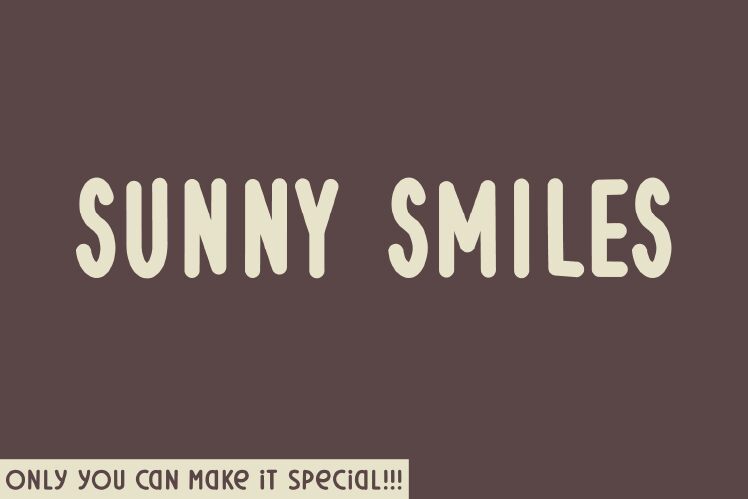
Sunny Smiles font by Hanna Bie Creative Studio brings charm with its handwritten style and condensed form, perfectly capturing the essence of warmth and approachability. This free font is not only visually appealing but also versatile for a wide range of design projects.
Ideal for branding, invitations, or social media, Sunny Smiles injects personality and friendliness into any creative endeavor. Its unique characteristics make it stand out while maintaining readability, offering designers an opportunity to create engaging visuals.